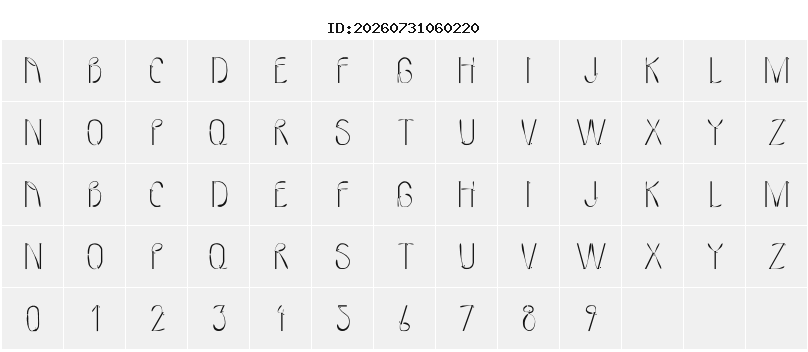
• Font Name: LTMMistel
• Full Font Name: Linotype MMistel
• Designer: Kerstin Fritsche
About LTMMistel.ttf
LTMMistel.ttf is a modern, elegant sans-serif font designed for ultimate readability and visual harmony. Perfect for branding, headlines, web design, and print materials.